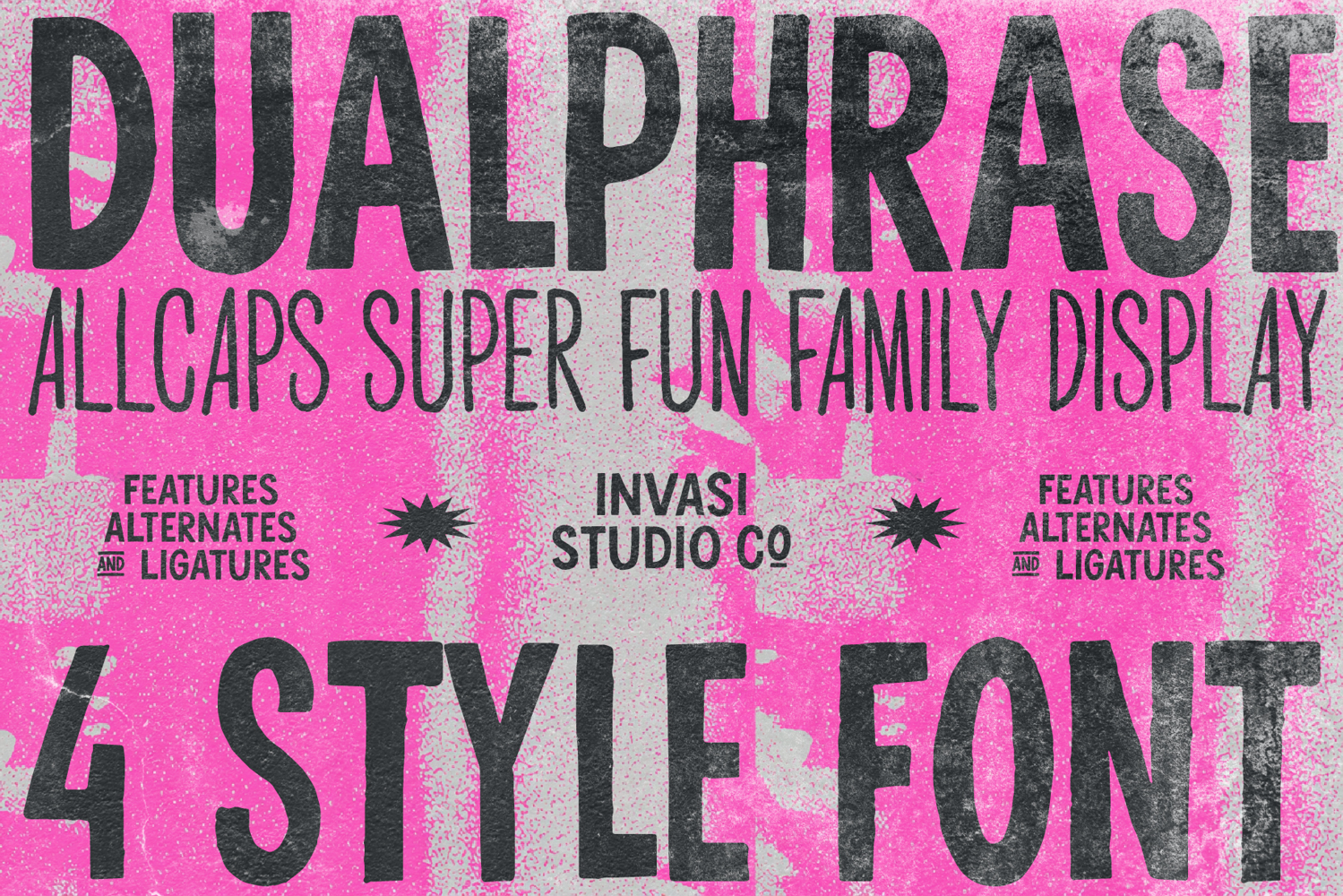
Dualphrase Rough Display Family
Your poster layout needs type that looks raw — not type that looks like a computer tried to fake raw. Dualphrase is a four-style all-caps display family where the rough edges come from the drawing, not a filter.
Regular, Bold, Regular Condensed, Bold Condensed. Each style drawn with hand-cut irregularity baked into the outlines. The forms hold up at poster scale and still read at smaller display sizes because the structure underneath is solid.
What sets it apart: 17 word ligatures that auto-compose common pairs like "FOR THE" and "BY THE" into tight typographic blocks. Your headlines look hand-assembled without touching a glyph panel.
Mix all four styles in one layout — stack the Regular with Bold Condensed, layer weights, fill the space — and it starts looking like a real poster wall. One family, full layout. No second font needed for the headline system.
Built for gig posters, street food branding, flea market signage, craft beer labels, zine covers, retro packaging, and band merch. Includes alternates, standard ligatures, and support for 100+ Latin-based languages.
Perfect For: Posters · Street food branding · Event flyers · Craft labels · Retro packaging · Zine & indie print · Band merch
Pairs Well With: A clean mono or quiet sans-serif for body. Let Dualphrase lead.
• 4 styles: Regular, Bold, Regular Condensed, Bold Condensed
• 221 glyphs · Word ligatures · Alternates